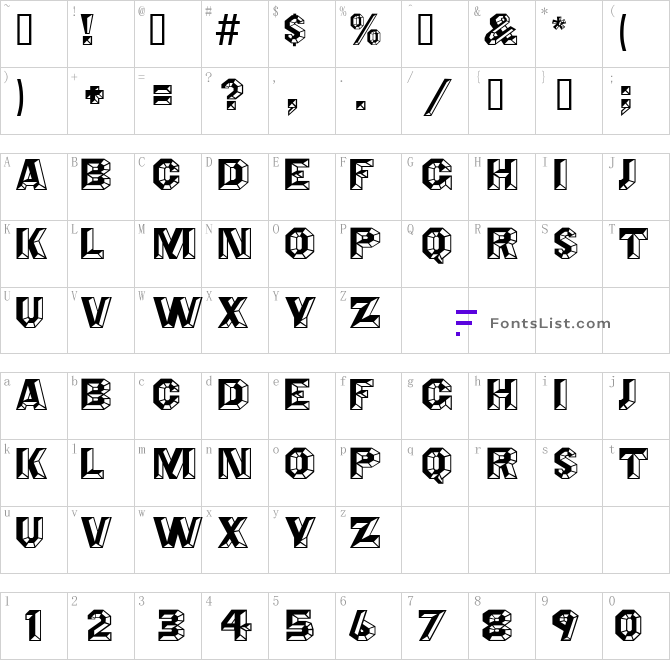
- Font Name:Angles MF
Angles-MF.ttf is a very beautiful artistic font, Angles-MF.ttf is widely used in the design and printing of various books and pictures,Angles-MF.ttf has a strong visual impact,Angles-MF.ttf is a commonly used font in newspapers, magazines and books, and is used in posters, e-commerce Poster design, store design, logo design, font design and other fields.Angles-MF.